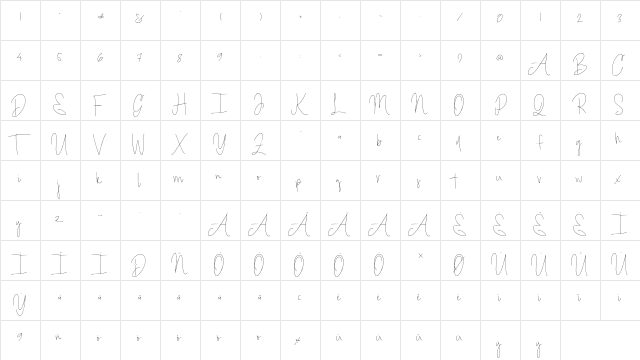
Bright Daddy Regular
Design Context for Bright Daddy Typeface
Bright Daddy is a composed and adaptable typeface that performs quietly and consistently across a wide range of design contexts.
Pro Tip: Pair Bright Daddy with a font of contrasting weight or personality to build a more expressive typographic hierarchy.